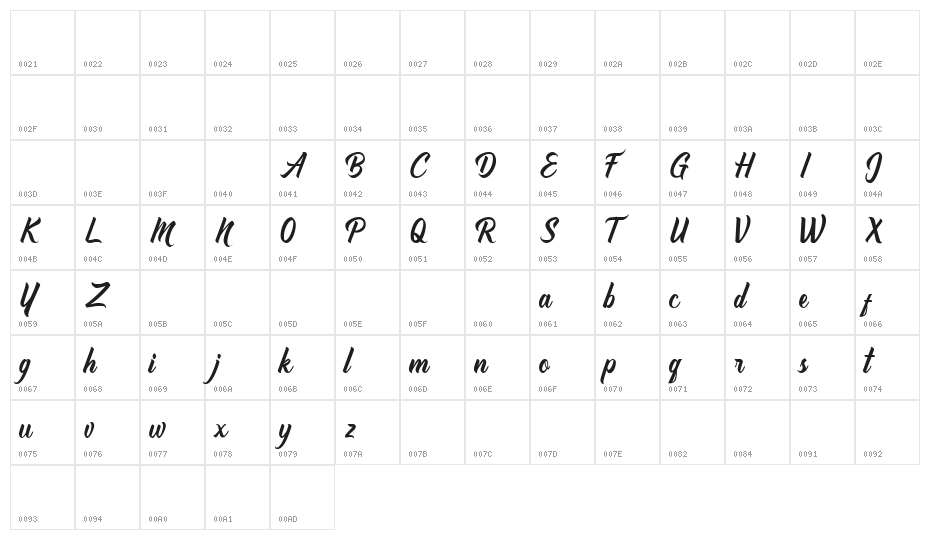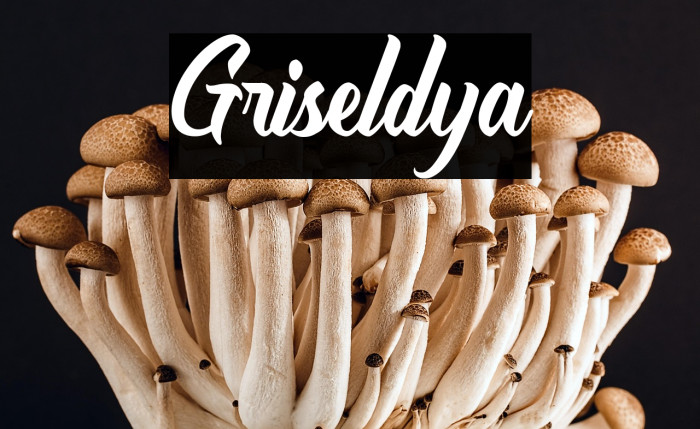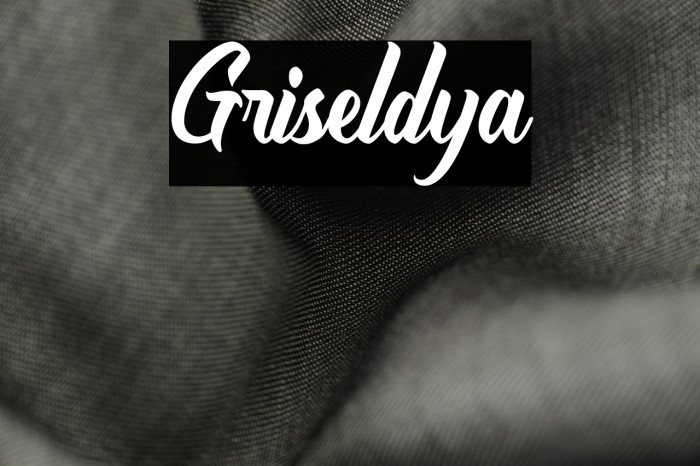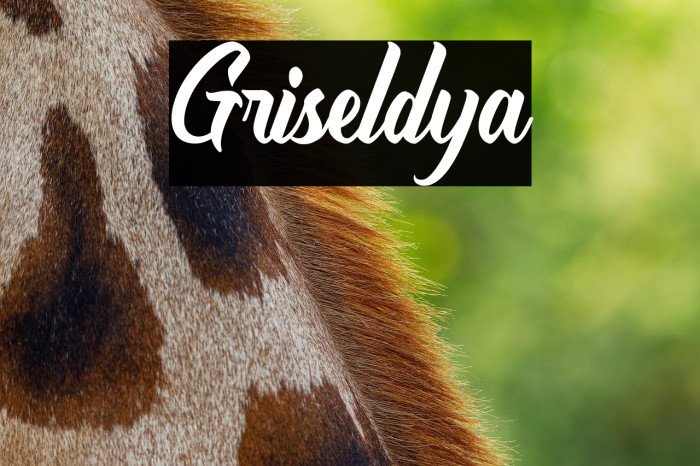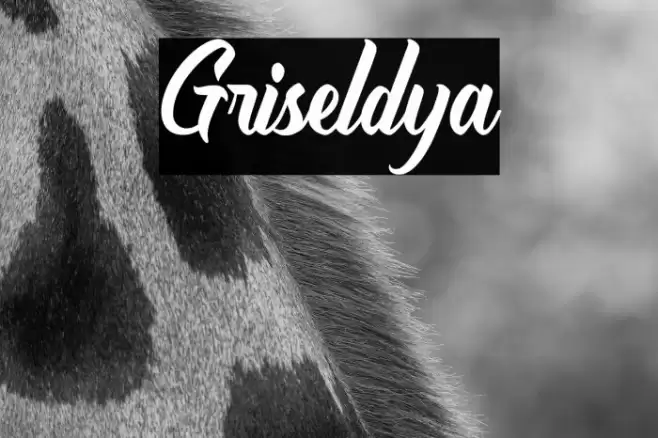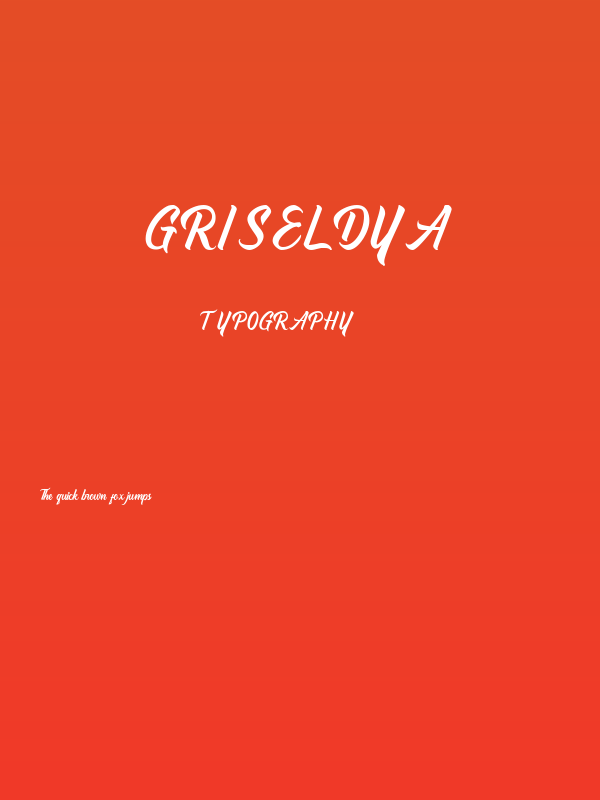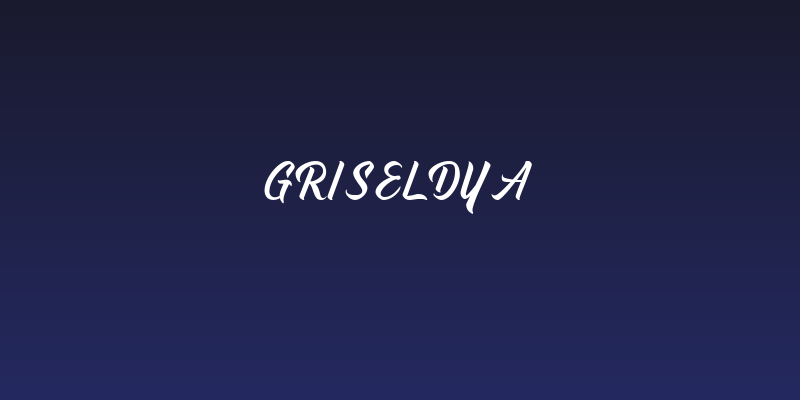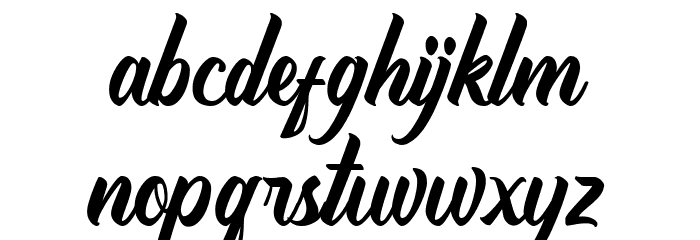
Griseldya Font
Griseldya Description
This font features a dynamic and elegant script style with a flowing, cursive design. The characters are interconnected, creating a sense of movement and fluidity. The uppercase letters are bold and slightly slanted, giving a formal yet approachable appearance. The lowercase letters maintain a consistent style, with smooth curves and a balanced weight. The overall design is reminiscent of traditional calligraphy, making it suitable for projects that require a touch of sophistication and elegance.
| Overall Style | Elegant, Classic |
| Use Case | Headlines, Invitations, Branding |
| Proposed Projects | Ideal for wedding invitations, elegant branding, greeting cards, and decorative headings. |